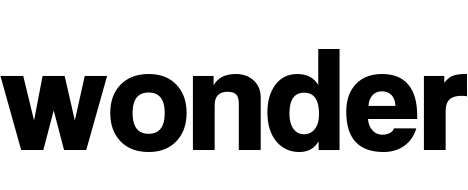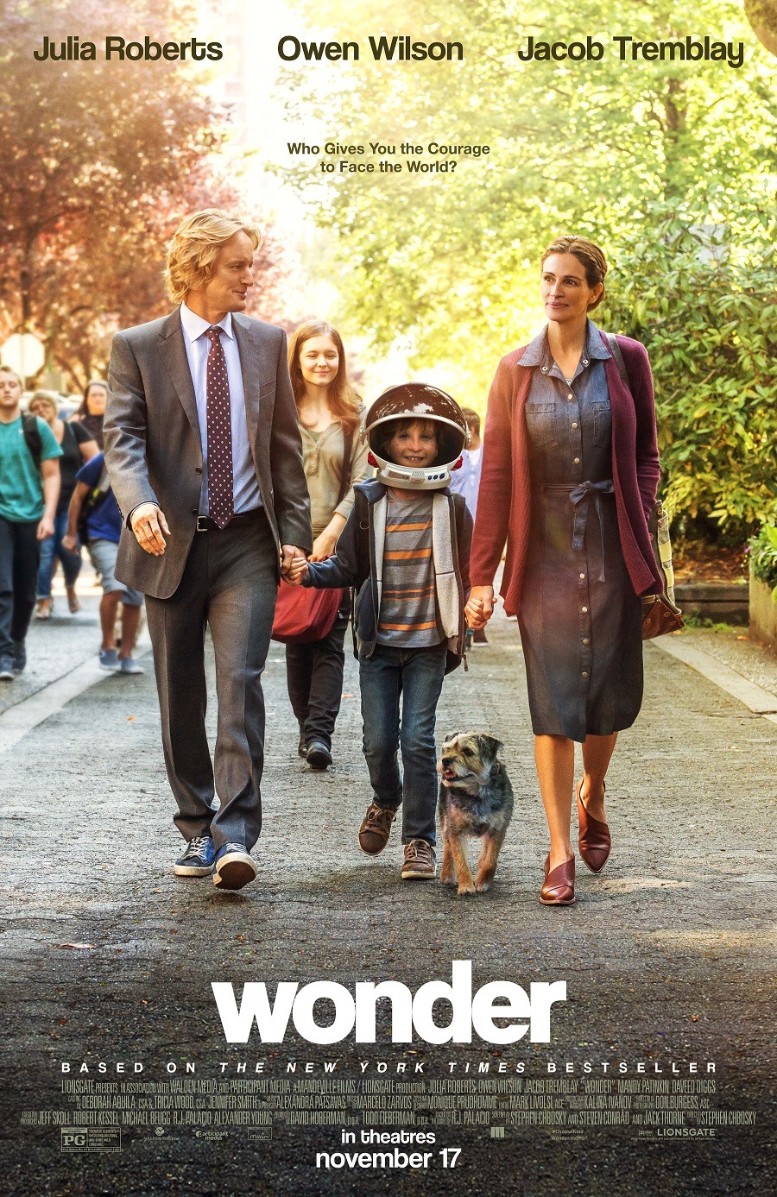
Wonder (film) Font
DramaWonder is a 2017 American drama film directed by Stephen Chbosky, based on the novel of the same name by R.J. Palacio. The film follows the story of a boy with a facial difference who enters fifth grade, attending a mainstream school for the first time.